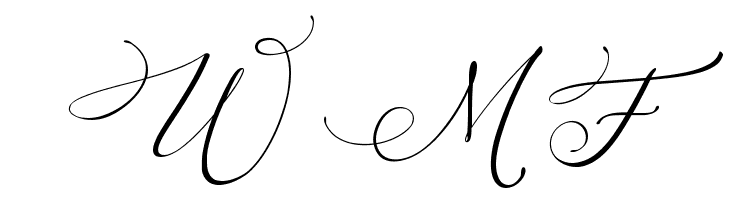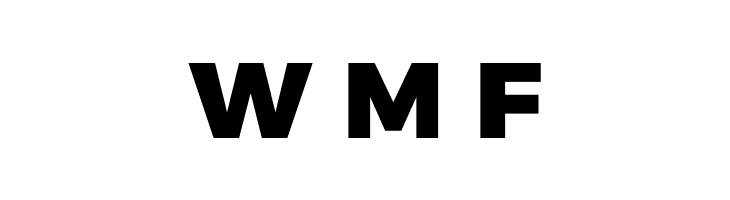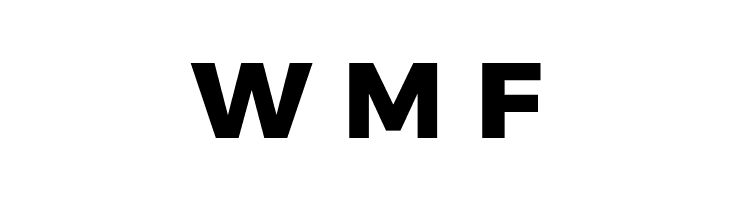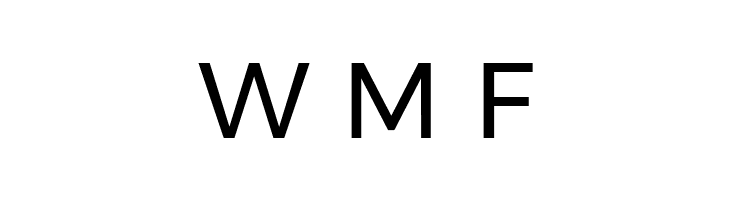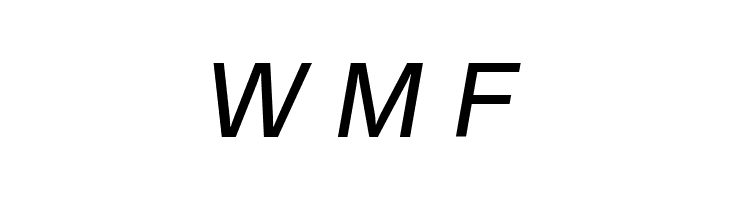
• Archivo VF Beta Italic
A modern, italic sans-serif font with clean lines and a professional appearance.
• Archivo VF Beta Regular
A modern, geometric sans-serif font with clean and readable letterforms.
• Arellia
An elegant script font with flowing, ornate swashes and a romantic style.
• Argentum Novus
A modern sans-serif font with geometric shapes and uniform strokes.
• Argentum Novus Black
A bold, modern font with thick strokes and a strong presence.
• Argentum Novus Bold
A bold, modern sans-serif font with clean, geometric lines.
• Argentum Novus ExtraBold
A bold, modern typeface with thick strokes and excellent legibility.
• Argentum Novus ExtraLight
A modern, extra-light sans-serif font with geometric shapes and smooth curves.
• Argentum Novus Light
A clean, modern font with a minimalist and uniform design.
• Argentum Novus Medium
A modern sans-serif font with clean lines and balanced proportions.